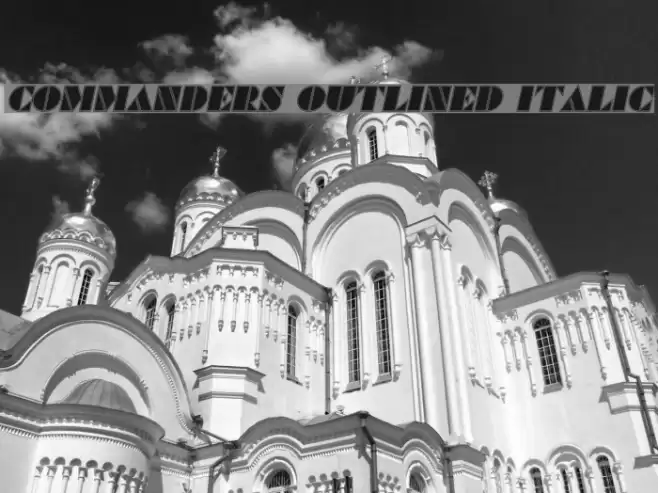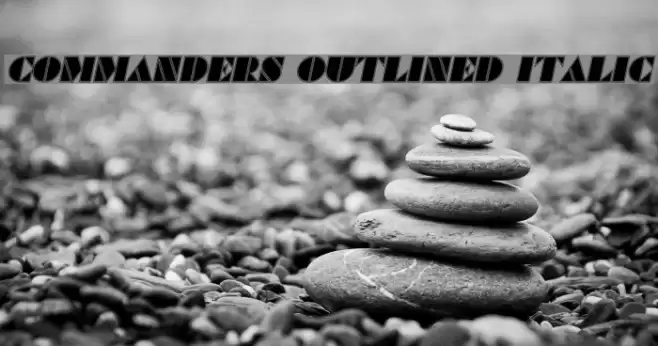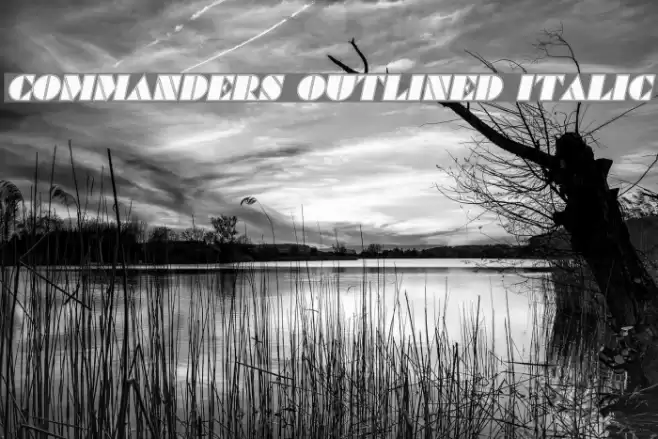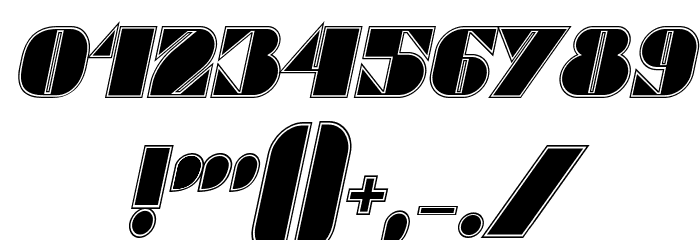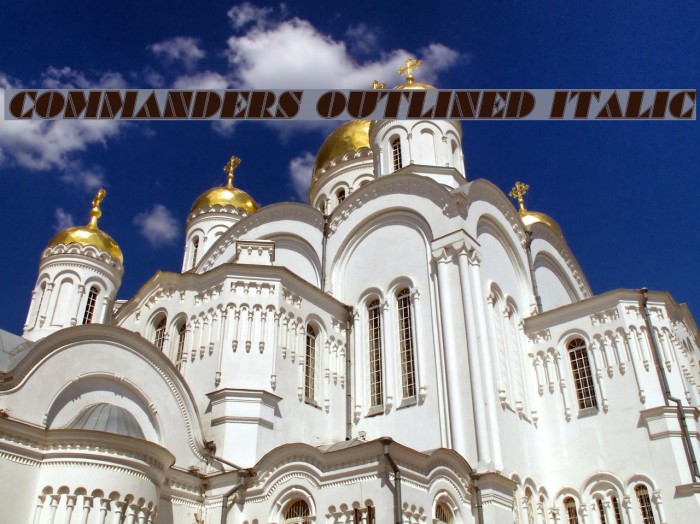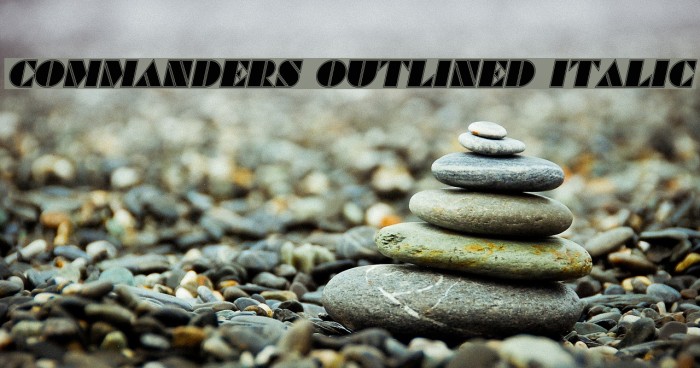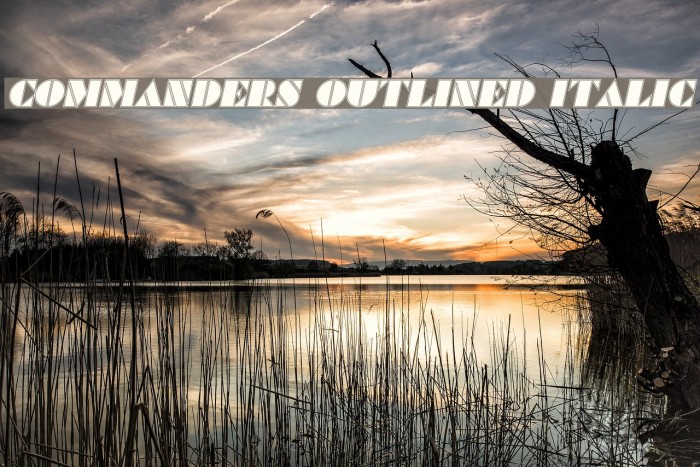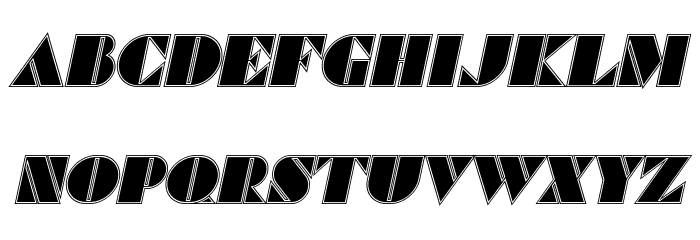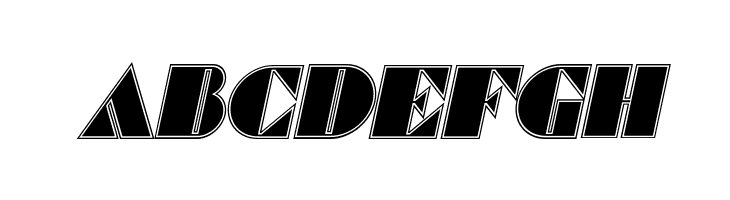
Commanders Outlined Italic Font
Commanders Outlined Italic Description
This font features a bold, italicized style with a distinct outlined design. The characters are sharply angled, giving a dynamic and modern appearance. The uppercase and lowercase letters maintain a consistent slant, enhancing the italic effect. Numbers and special characters follow the same stylistic approach, ensuring uniformity across all glyphs. The outlined nature of the font adds a layer of depth, making it suitable for eye-catching designs. The overall aesthetic is both contemporary and striking, ideal for projects that require a bold statement.
A bold, italicized outlined font with a modern and dynamic style from Uncategorized fonts.